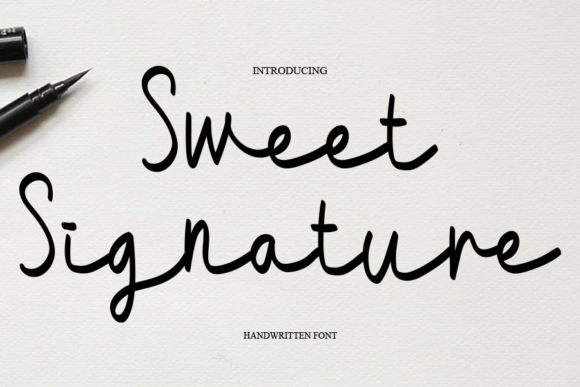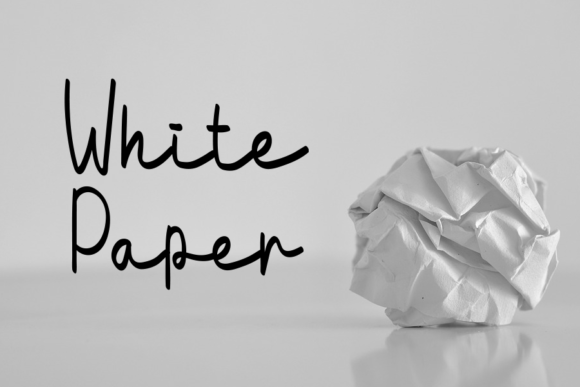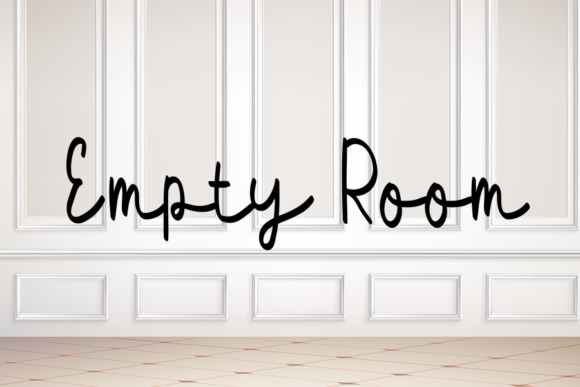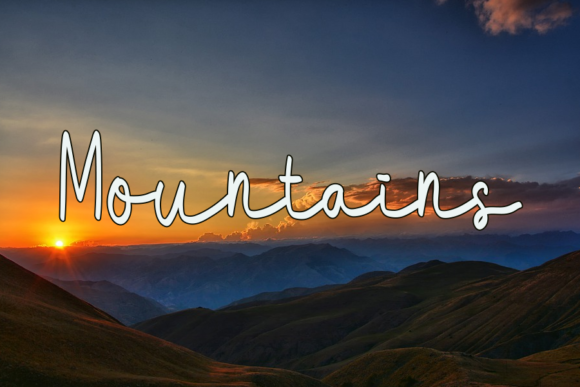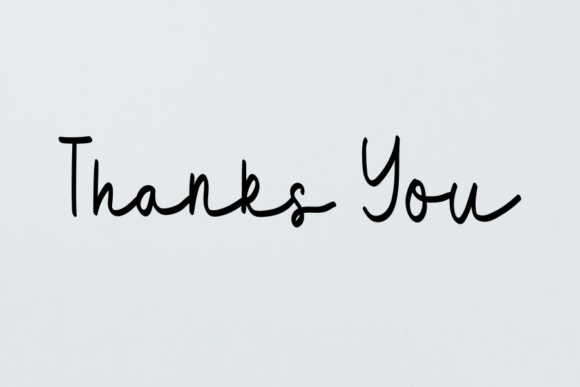
Sweet Signature Font
About Sweet Signature Font
Introducing Sweet Signature, a sweet and delicate handwritten font that emanates charm and joy. With its dainty and joyful style, Sweet Signature is ideal for writing wedding invitations, cards, or any other design that requires a romantic and personalized touch.
Sweet Signature’s sweet and delicate handwritten design sets it apart as a font that captures attention and adds a touch of elegance to your projects. Each letter carries a sense of delicacy and grace, creating a visually appealing composition. This dainty and joyful nature adds a sense of romance and personalization to your designs, making them truly special.
The versatility of Sweet Signature allows it to shine in various design contexts, particularly for wedding-related projects. Whether you’re working on wedding invitations, save-the-date cards, love letters, or other romantic-themed designs, Sweet Signature adds a touch of charm and elegance. Its handwritten appearance creates an intimate and personalized feel, enhancing the overall visual appeal.
Sweet Signature’s delicate nature makes it perfect for capturing the essence of romance and celebration. The flowing letterforms and gentle strokes evoke a sense of beauty and tenderness, setting the perfect tone for wedding-related designs. With Sweet Signature, you can create designs that reflect the romance and joy of special occasions.
In addition to wedding invitations and cards, Sweet Signature can be used for a variety of projects that require a romantic and personalized touch. Whether it’s designing heartfelt quotes, creating custom typography-based compositions, or adding a touch of elegance to your branding materials, Sweet Signature brings a sense of warmth and joy to your designs.
In summary, Sweet Signature is a sweet and delicate handwritten font that adds charm and joy to your designs. Its dainty and joyful style makes it ideal for writing wedding invitations, cards, or any design that requires a romantic and personalized touch. Embrace Sweet Signature’s sweetness and let it enhance the beauty and elegance of your projects, creating visually appealing compositions that evoke a sense of romance and celebration.